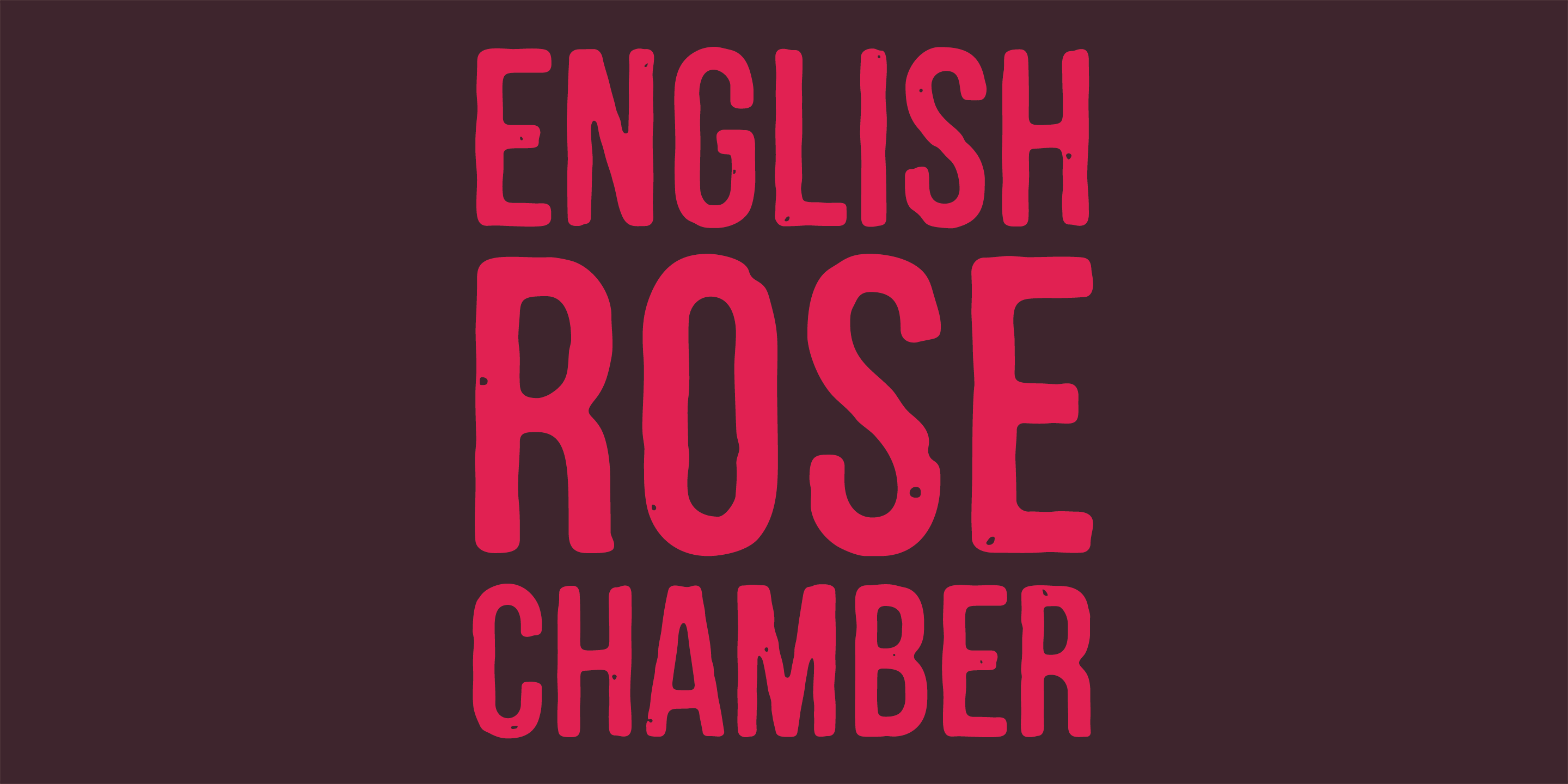
Mocha Mattari Free Download
Mocha Mattari Font Free Download
Looking for a cozy and inviting typeface that adds warmth and charm to your designs? Mocha Mattari Font Free Download is the perfect blend of handcrafted elegance and playful personality. Ideal for café branding, product packaging, social media graphics, and personal blogs, this font delivers a smooth and welcoming aesthetic that instantly draws the eye.
With its slightly whimsical lettering and soft flow, Mocha Mattari Font Free Download adds character without being overwhelming. It works beautifully in both print and digital settings, especially when you want your message to feel personal, heartfelt, and just a bit indulgent.